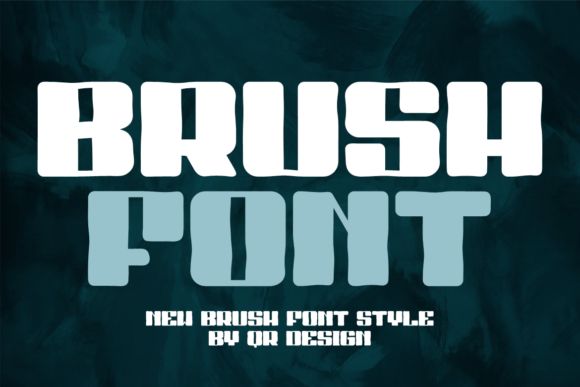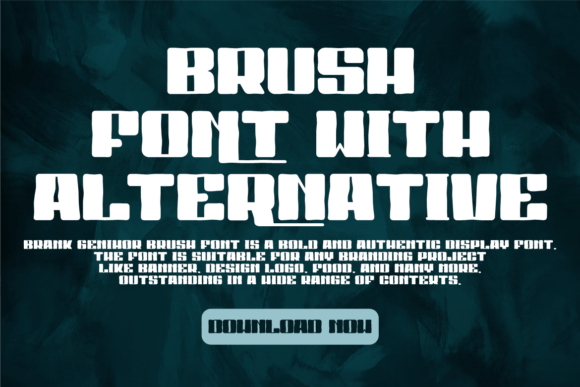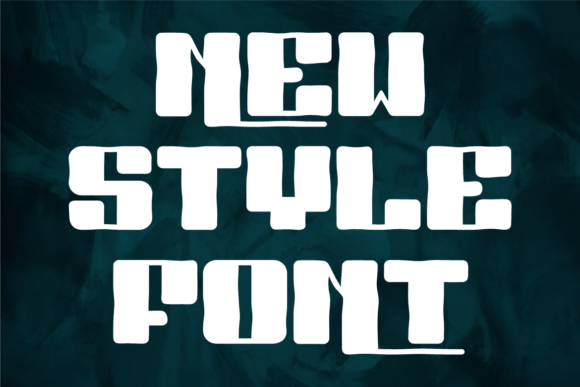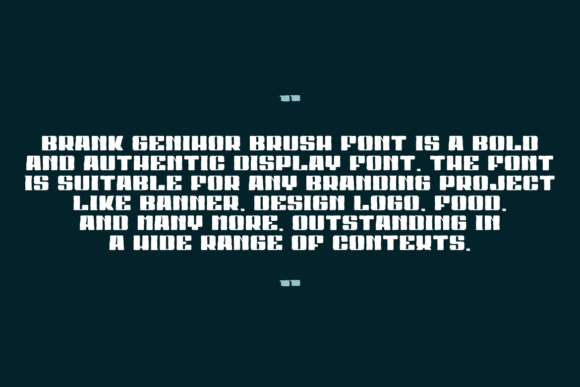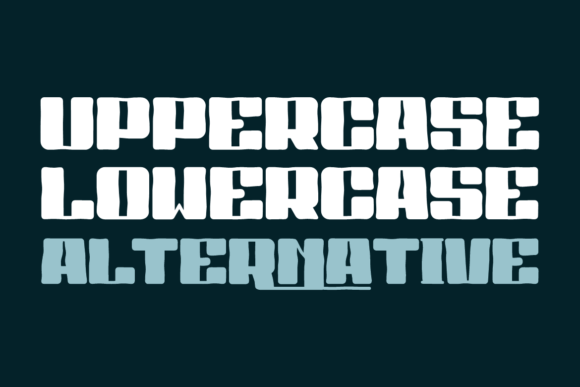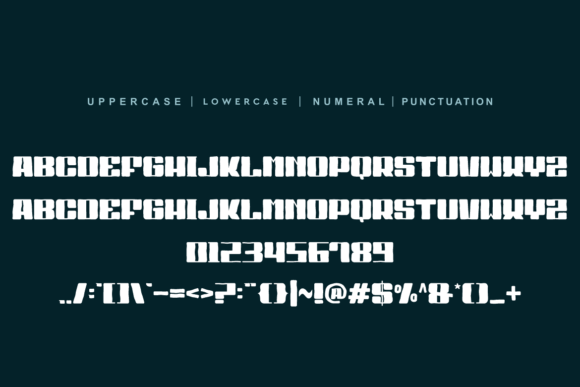
Unleashing Creativity with Brank Genihor Brush Font
Have you ever been stuck on a design project, staring at a blank page, waiting for inspiration to strike? We’ve all been there. The creative process can be both exhilarating and frustrating at the same time. But what if you had the perfect tool to break through that barrier and bring your ideas to life? That’s where the Brank Genihor Brush Font comes in – a powerful display font designed to make a statement.
This stunning font is perfect for adding a touch of elegance and sophistication to your posters, banners, and headlines. With its unique brush-like texture, it’s sure to capture the attention of your audience and leave a lasting impression. Whether you’re a seasoned designer or just starting out, the Brank Genihor Brush Font is a valuable addition to your toolkit, offering endless possibilities for creative expression.
Key Features of Brank Genihor Brush Font
- Font Style: A unique, hand-drawn brush font with a warm, organic feel.
- Font Size: Offers a range of font sizes, from 8pt to 200pt, making it suitable for various design applications.
- Resolution: Designed for high-resolution displays, with optimal performance at 300 DPI (dots per inch) and above.
- Character Set: Includes a comprehensive set of characters, including Latin, Cyrillic, and Greek alphabets, as well as punctuation and symbols.
- Unique Characteristics: Features subtle texture and imperfections, giving it a natural, hand-painted look.
Brank Genihor Brush Font Review
Overall, I’m quite impressed with the Brank Genihor Brush Font. It has a certain charm that makes it perfect for creative projects that require a unique touch. ✨ Here are some of the things that work well:
- Unique brush strokes: The font’s hand-drawn feel gives it a distinct personality that sets it apart from more common fonts.
- Highly customizable: The font comes with a wide range of options for customizing its look and feel, making it easy to get the desired aesthetic.
- Great for creative projects: As I mentioned earlier, the font’s unique feel makes it perfect for creative projects like illustrations, graphics, and more.
However, there are some limitations to keep in mind: ⚠️
- Not ideal for body text: While the font is great for headlines and titles, it’s not the best choice for body text due to its complex brush strokes.
- Limited font sizes: The font may not render well at very small or very large font sizes, so be sure to test it out before using it in your project.
Overall, I think the Brank Genihor Brush Font is a great addition to any designer’s toolkit. It’s perfect for adding a touch of personality to creative projects, and its high level of customizability makes it a versatile choice. Just be sure to use it wisely and in the right context.
Tip: Use Brank Genihor Brush Font for creative projects, such as invitations, posters, or social media graphics.
Tip: Use Brank Genihor Brush Font for creative projects, such as illustrations, graphics, or typography-based art.
Tip: Use Brank Genihor Brush Font for presentations, reports, or documents that require a creative touch.
Brank Genihor Brush Font is ideal for:
- Creative projects, such as invitations, posters, or social media graphics.
- Presentations, reports, or documents that require a creative touch.
Alternatives to Brank Genihor Brush Font
Great Vibes is a beautiful, elegant script font that’s perfect for adding a touch of sophistication to your designs. It’s ideal for use in titles, headings, and other high-impact areas where you want to make a statement.
Great Vibes is similar to Brank Genihor Brush Font in its flowing, handwritten feel, but it has a more refined and polished appearance. Great Vibes is also more versatile and can be used in a wider range of contexts, from fashion and beauty to luxury and high-end brands.